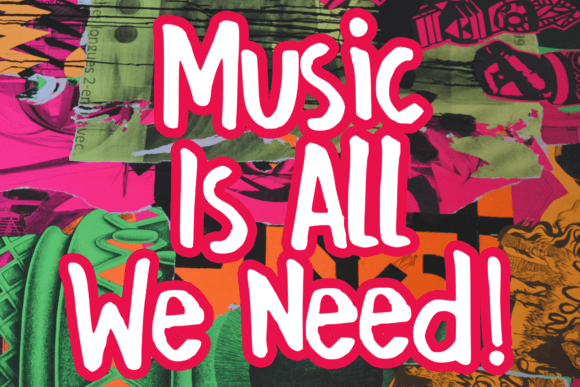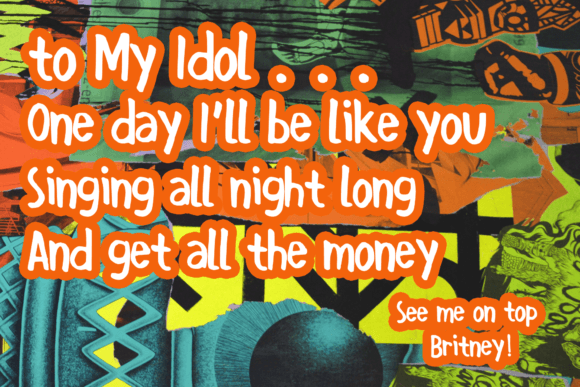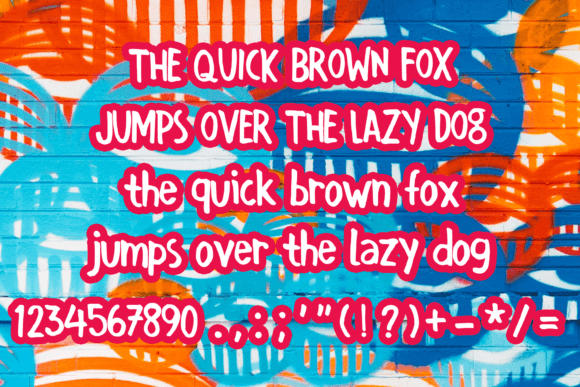
Introduction to Poster Hand Brush Font
Remember that moment when you’re brainstorming ideas for a new creative project and you just can’t seem to find the right font to match your vision? It’s like searching for the perfect paint color to bring your artwork to life. But what if I told you that there’s a font that can add that extra oomph to your design and make it truly stand out? Enter the Poster Hand Brush Font, a free download that’s perfect for designers looking to add a high-quality, handmade touch to their work.
This playful handwritten marker font is designed to give your designs a bold and fun vibe, making it perfect for projects like t-shirts, book designs, and even greeting cards. With its transparent background, you can easily layer it over any image or texture, giving you endless creative possibilities. Whether you’re a seasoned designer or just starting out, the Poster Hand Brush Font is a valuable design resource that’s sure to elevate your next creative project.
Key Features of Poster Hand Brush Font
- High-quality, hand-drawn design ideal for creative projects and artistic expressions.
- Comes with a transparent background, allowing for seamless integration into various design projects.
- Features a unique, brush-style design that adds a touch of personality to any project.
- Perfect for use in posters, flyers, social media graphics, and other visual materials where a creative, handcrafted look is desired.
Honest Review: Poster Hand Brush Font
I recently stumbled upon the Poster Hand Brush Font, and I’m excited to share my thoughts on this design resource. As a designer, I’m always on the lookout for high-quality fonts that can elevate my creative projects.
One of the things that caught my attention was the fact that this font is available for free download. This is a huge plus, especially for indie designers or those just starting out. The font’s design is quite unique, with a beautiful, hand-drawn feel that’s reminiscent of traditional poster art.
Here are some of the things that work well about this font: ✨
- Unique, hand-drawn design
- High-quality images with transparent background
- Perfect for creative projects that need a touch of whimsy
However, there are a few limitations to keep in mind: ⚠️
- May not be suitable for corporate or formal designs
- Some letters may require additional adjustments for optimal spacing
Overall, I’m really impressed with the Poster Hand Brush Font. It’s a great addition to any designer’s toolkit, and I can see it being used in a variety of creative projects. With its unique design and high-quality images, it’s definitely worth checking out.
The Poster Hand Brush Font is ideal for use in creative projects, such as posters, flyers, and social media graphics. It’s also a great design resource for creating eye-catching headlines and titles. With its free download and high-quality design, the Poster Hand Brush Font is a versatile tool for any design project.